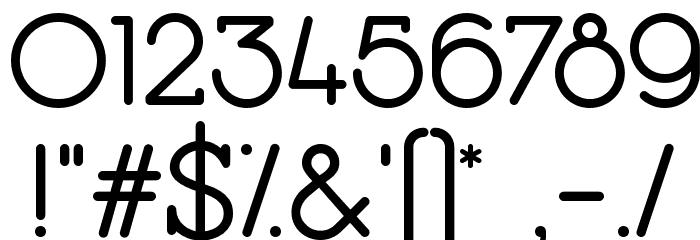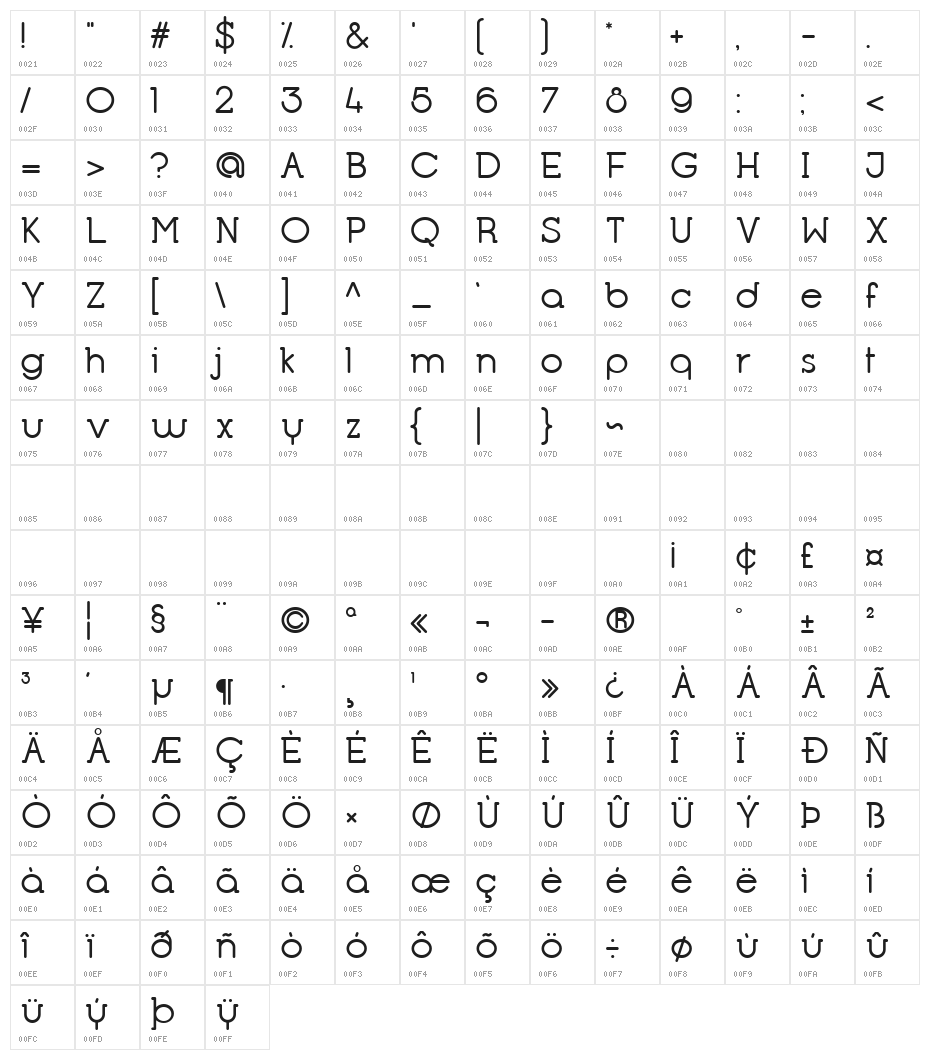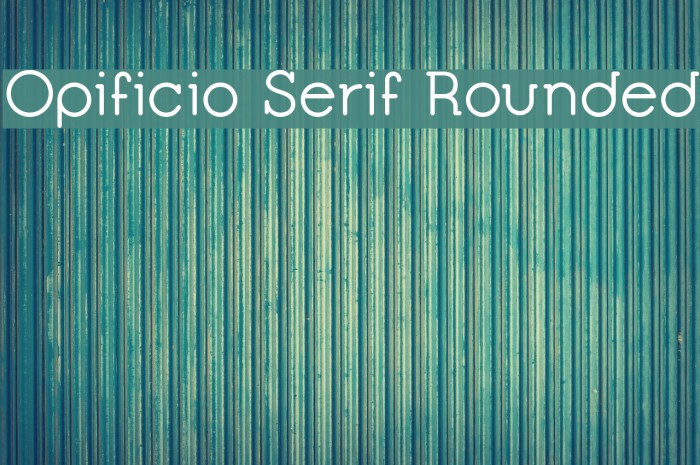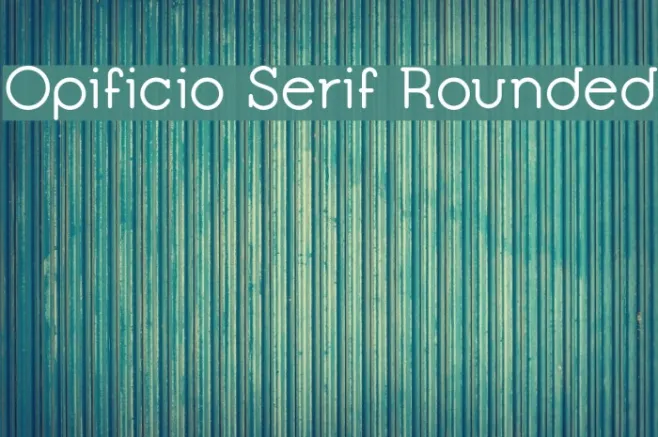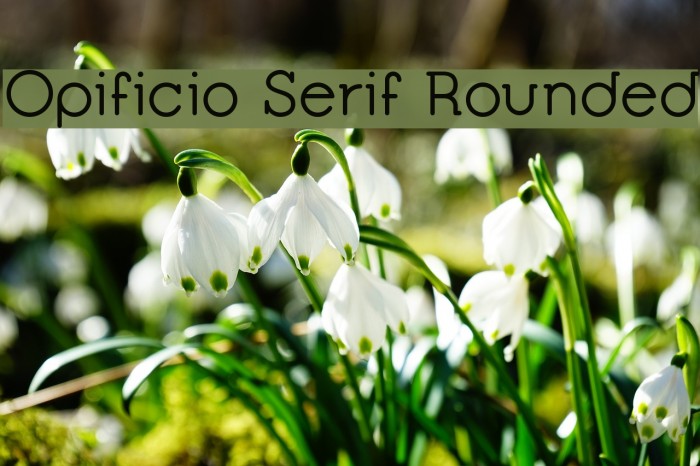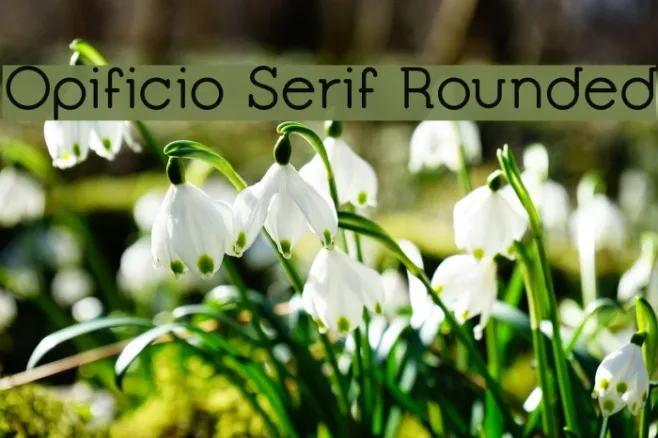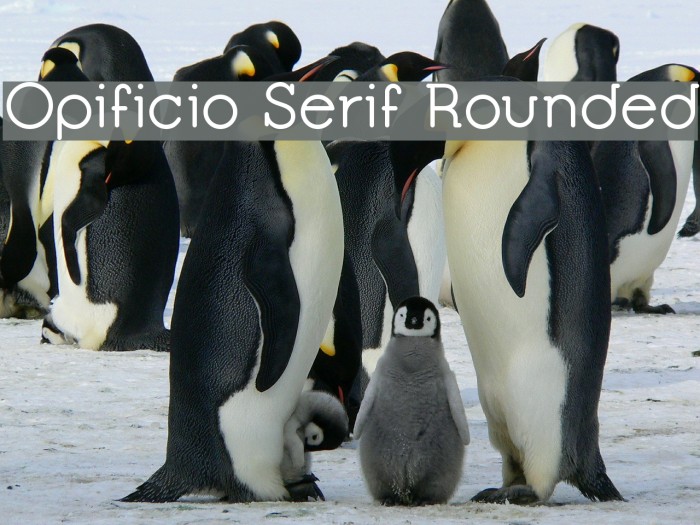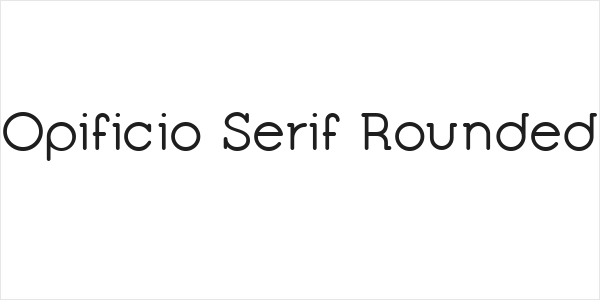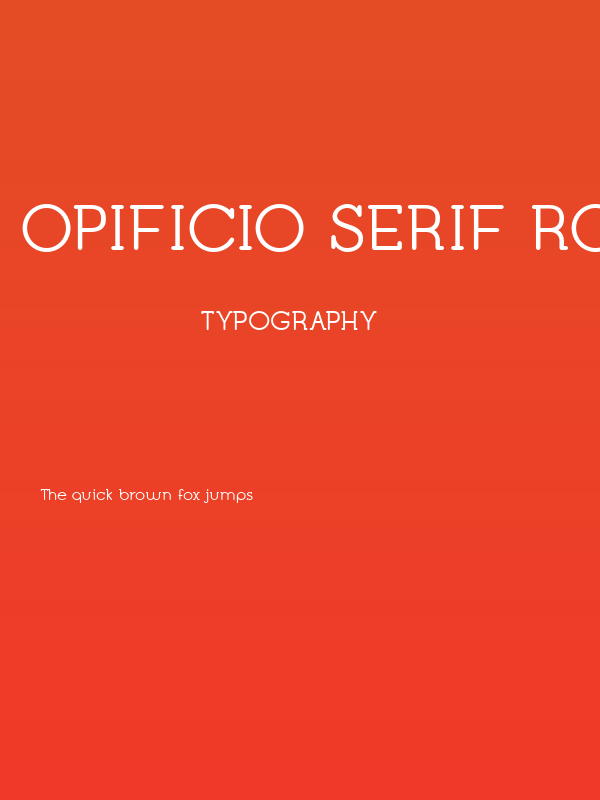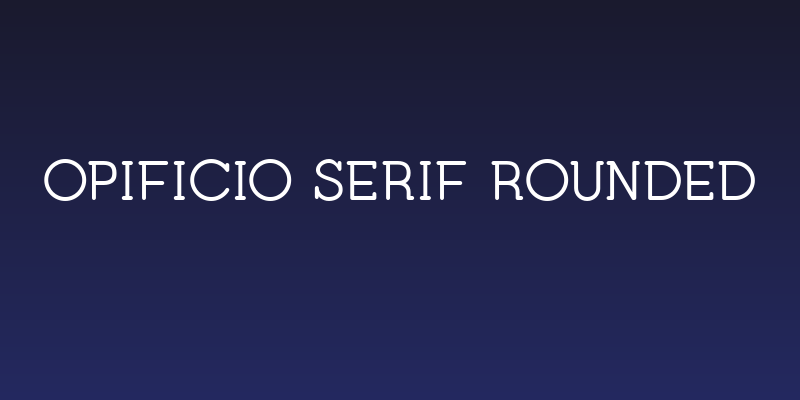
Opificio Serif Rounded Font
Opificio Serif Rounded Description
This font features a rounded serif style that combines the traditional elegance of serif fonts with a modern, approachable twist. The rounded edges soften the overall appearance, making it suitable for a variety of design contexts. The uppercase and lowercase letters maintain a consistent stroke weight, providing a harmonious and balanced look. The numerals and special characters are designed with the same rounded characteristics, ensuring uniformity across all glyphs. This font is versatile, offering a friendly yet sophisticated aesthetic that can enhance both digital and print media.
| Proposed Projects | Ideal for branding, editorial design, packaging, and web design projects seeking a friendly yet sophisticated look. |